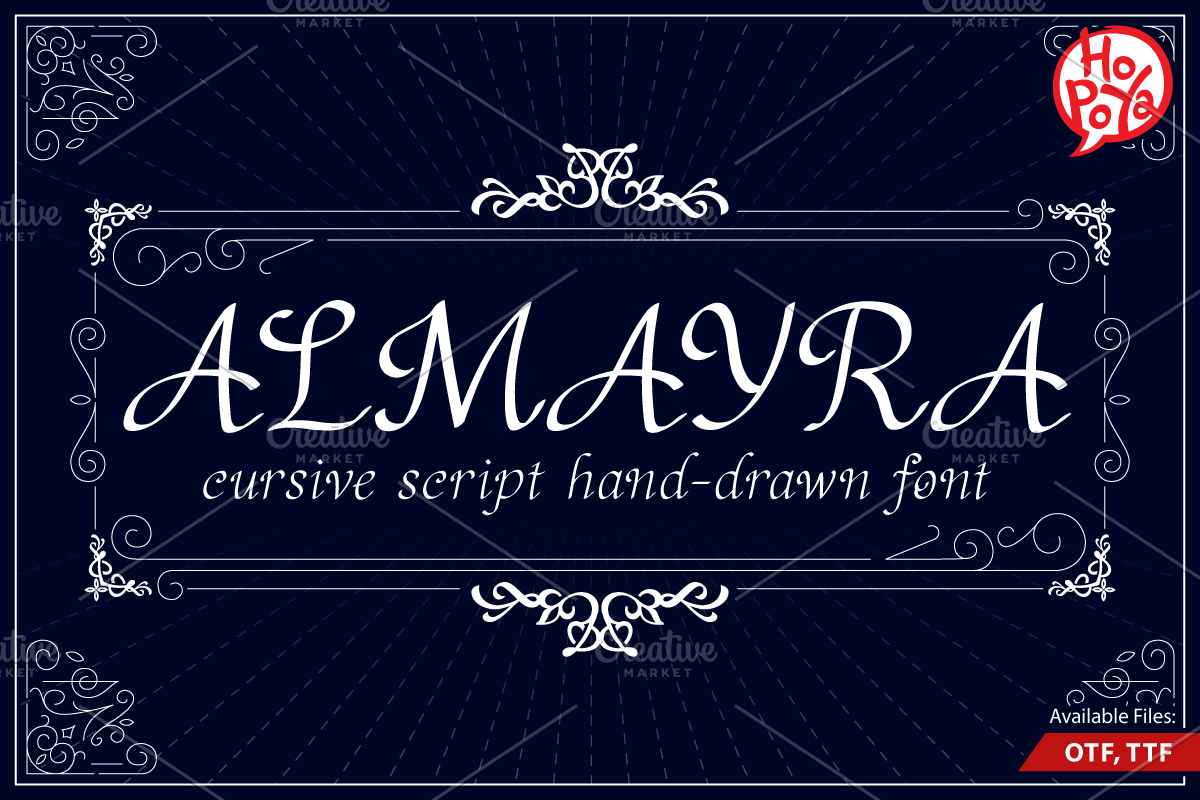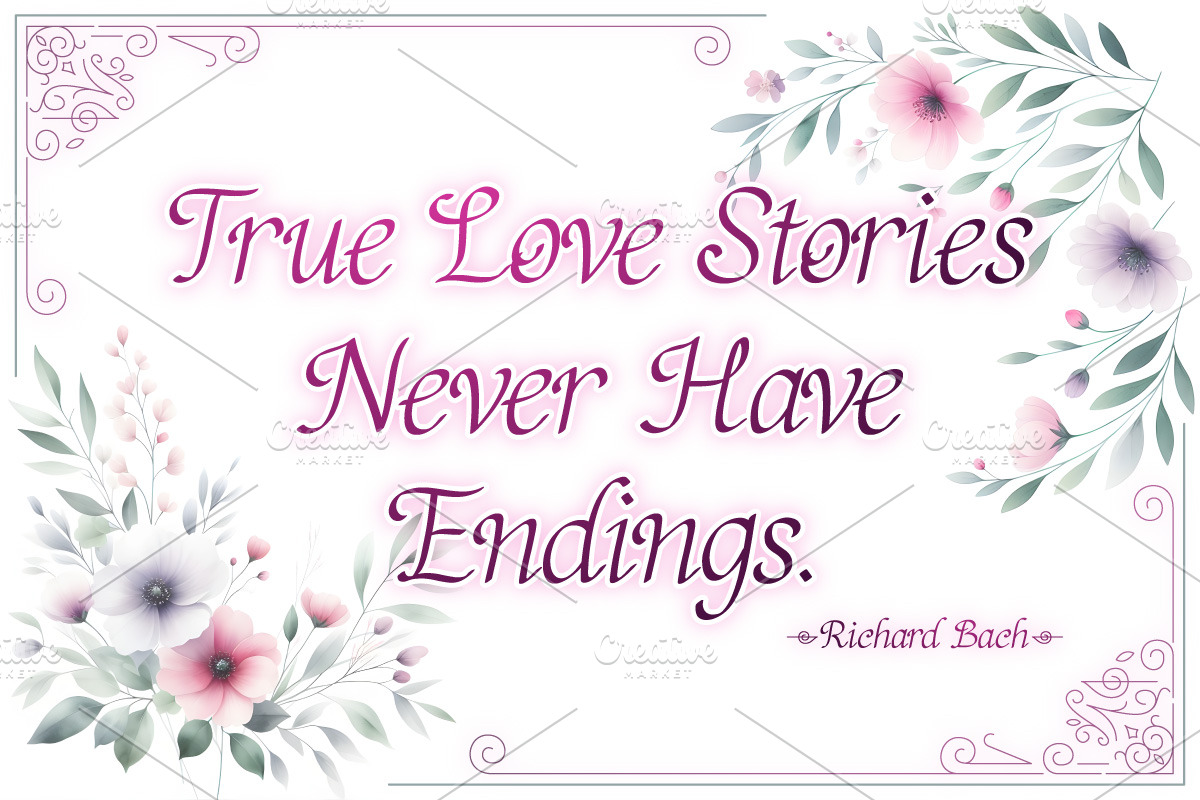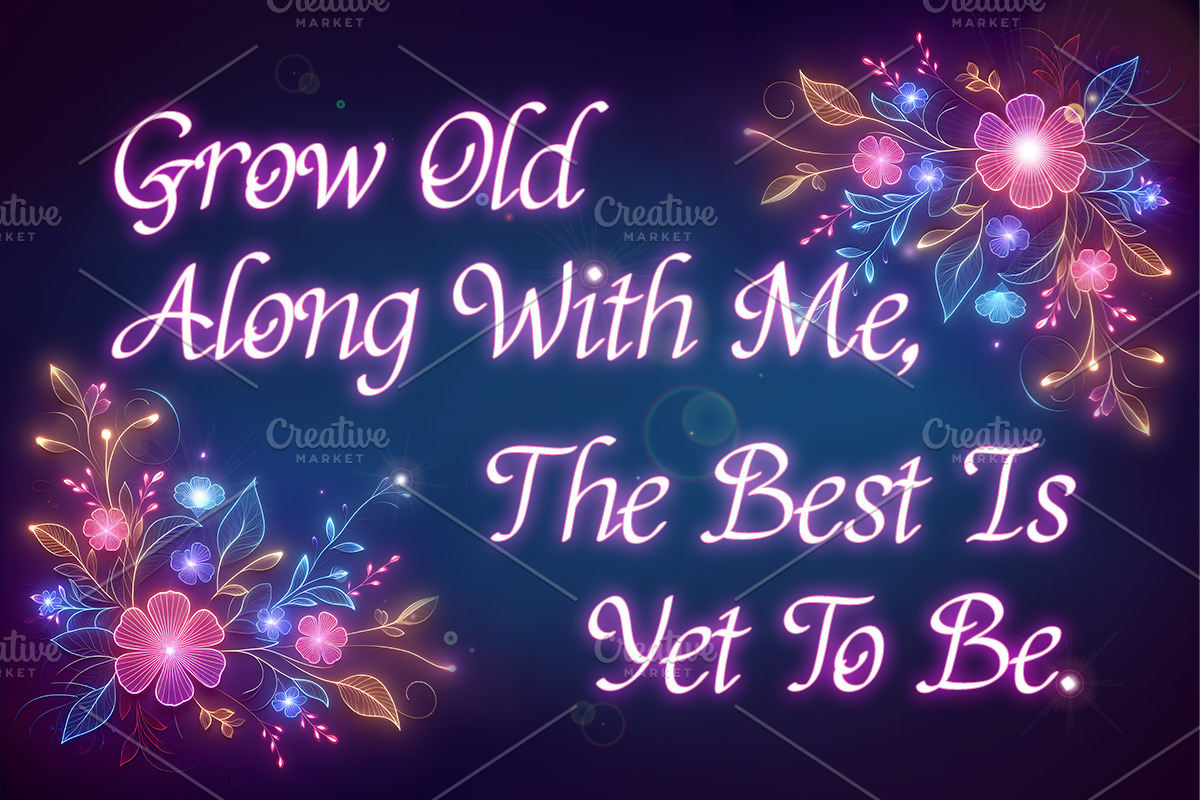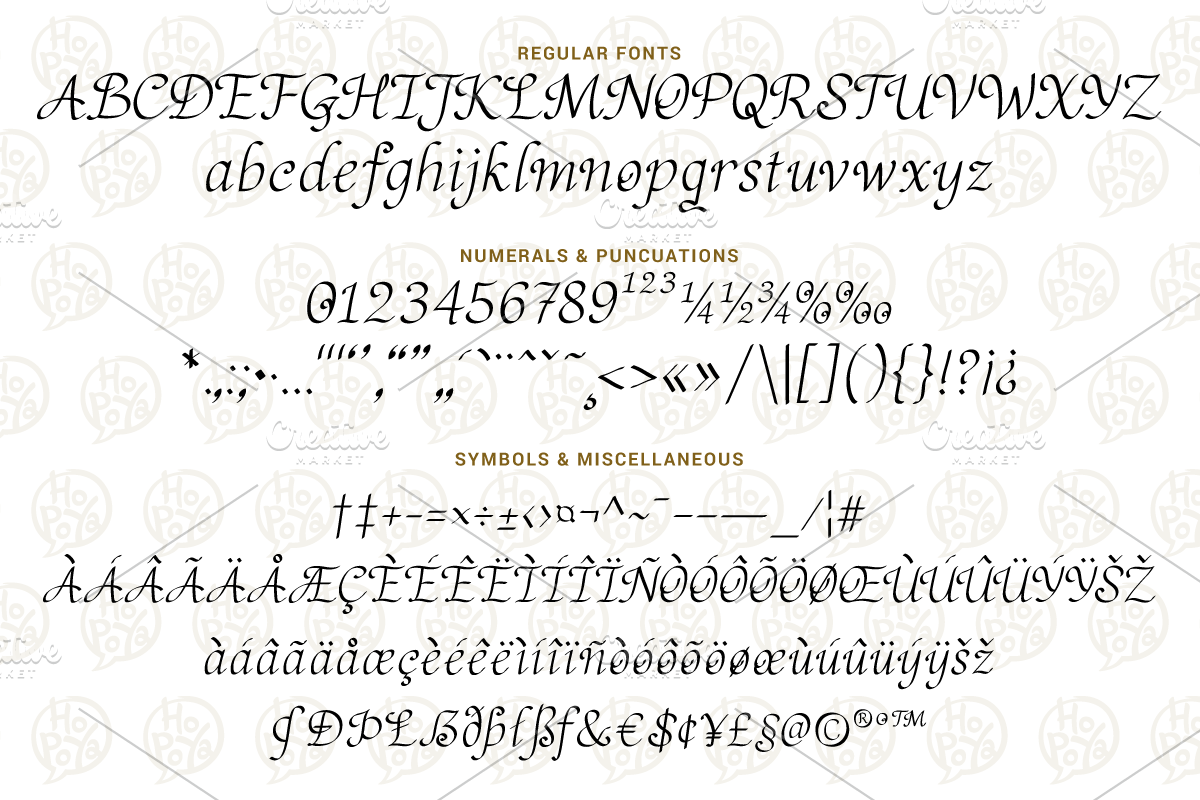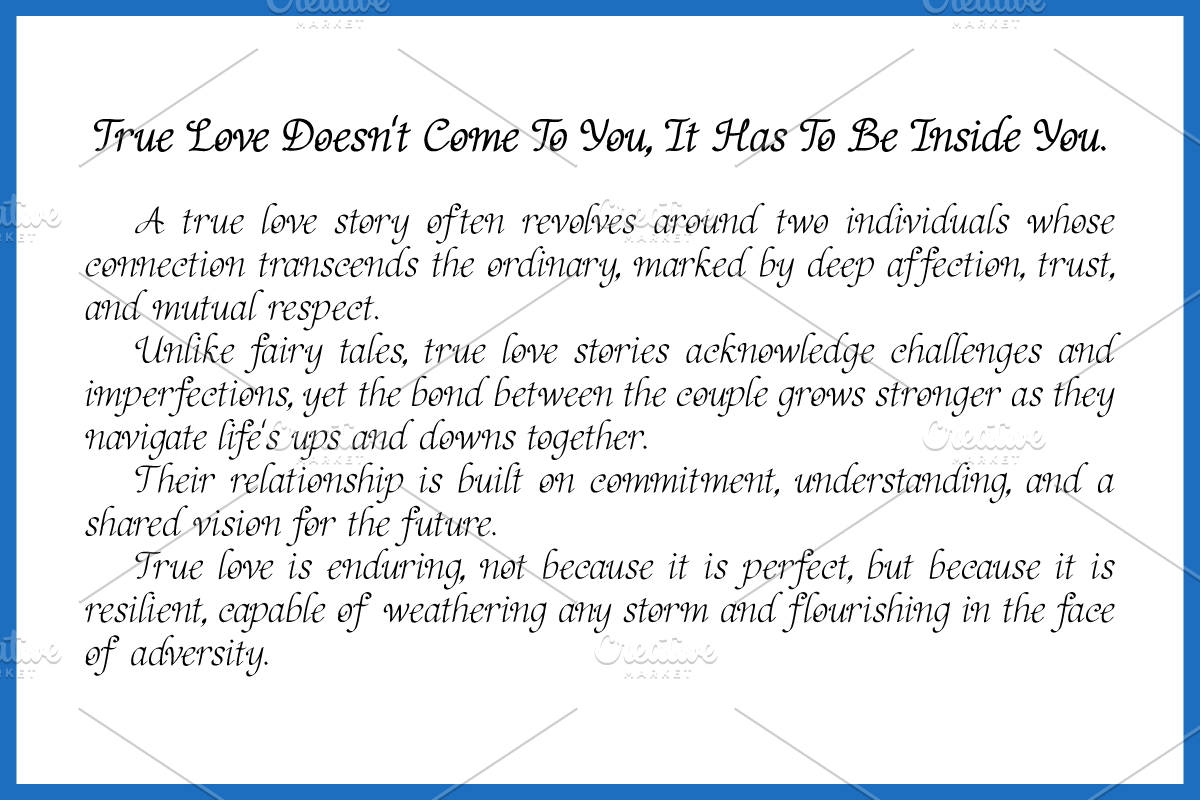
Almayra Font
Almayra Font is a cursive script hand-drawn font style. Comfortable to read & still relevant for modern use. Suitable for Story Books, Greeting Cards, Quotes, etc. The font includes uppercase and lowercase multilingual letters, numbers, symbols, and punctuation.